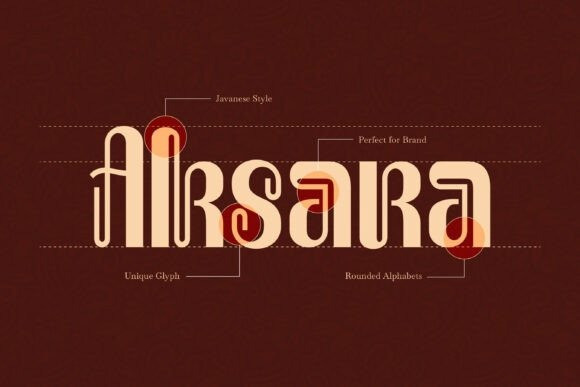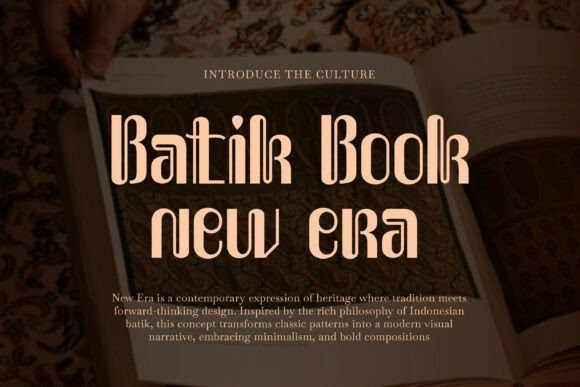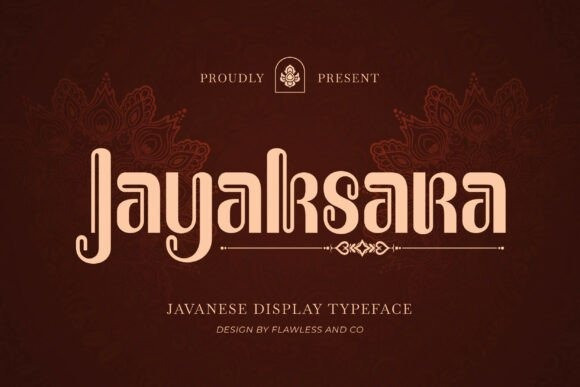
JAYAKSARA FONT
JAYAKSARA Font is a Javanese display font that celebrates the beauty of traditional script with a modern visual approach. Inspired by the rich heritage of Javanese lettering, this typeface features distinctive curves, ornamental details, and unique character forms that create an authentic and artistic impression. Designed for display purposes, Jayaksara brings strong cultural identity into every composition while maintaining a balanced and visually engaging structure. Its expressive style makes it perfect for projects that aim to highlight tradition, creativity, and local heritage.